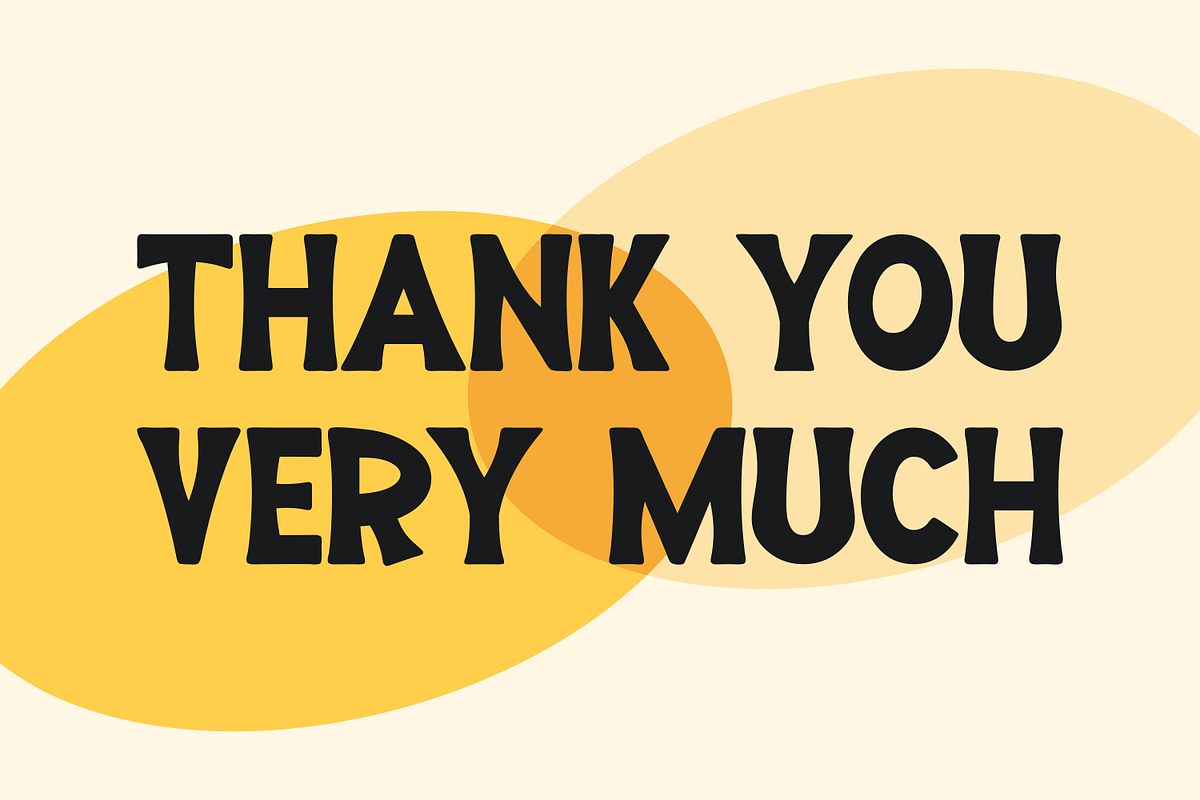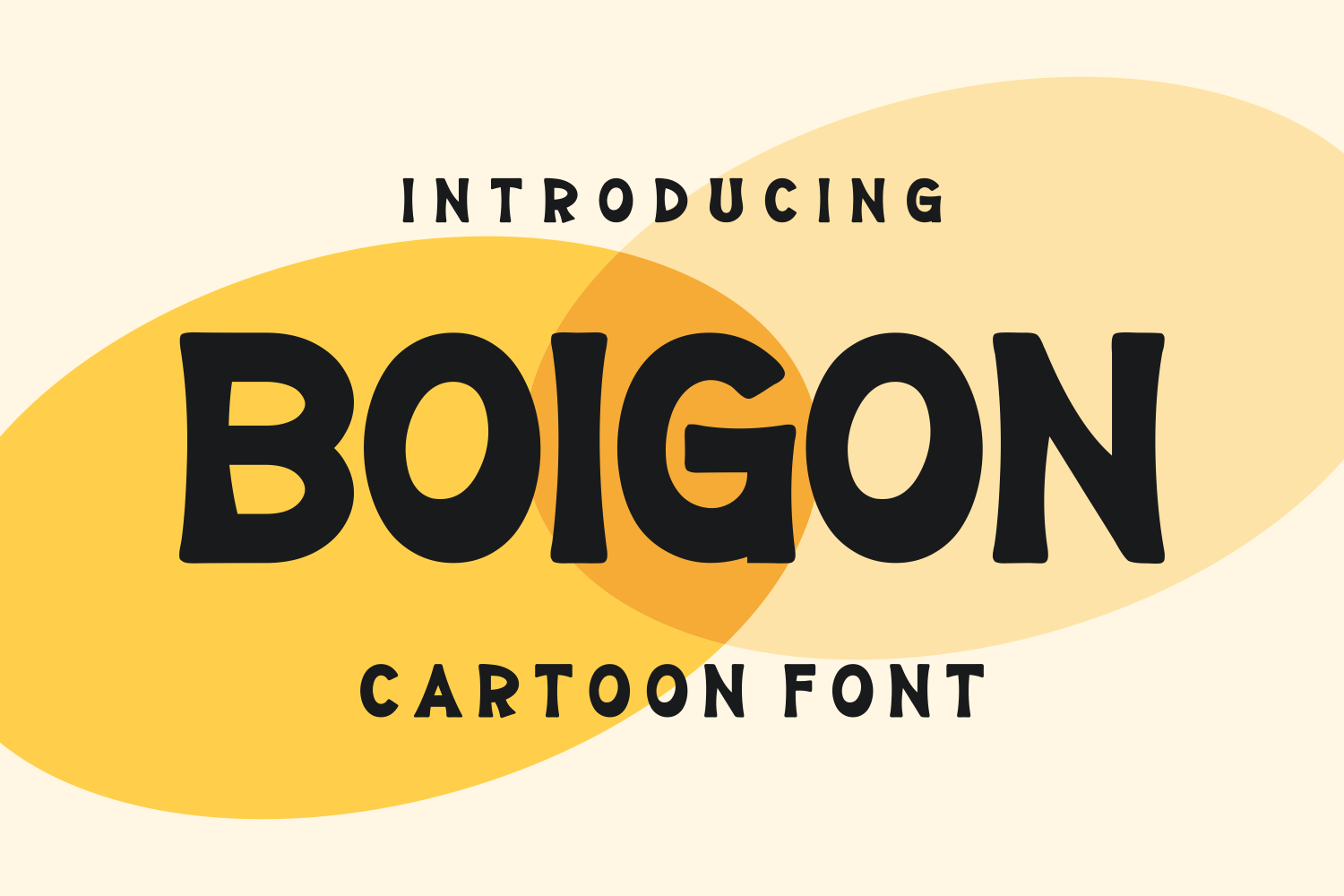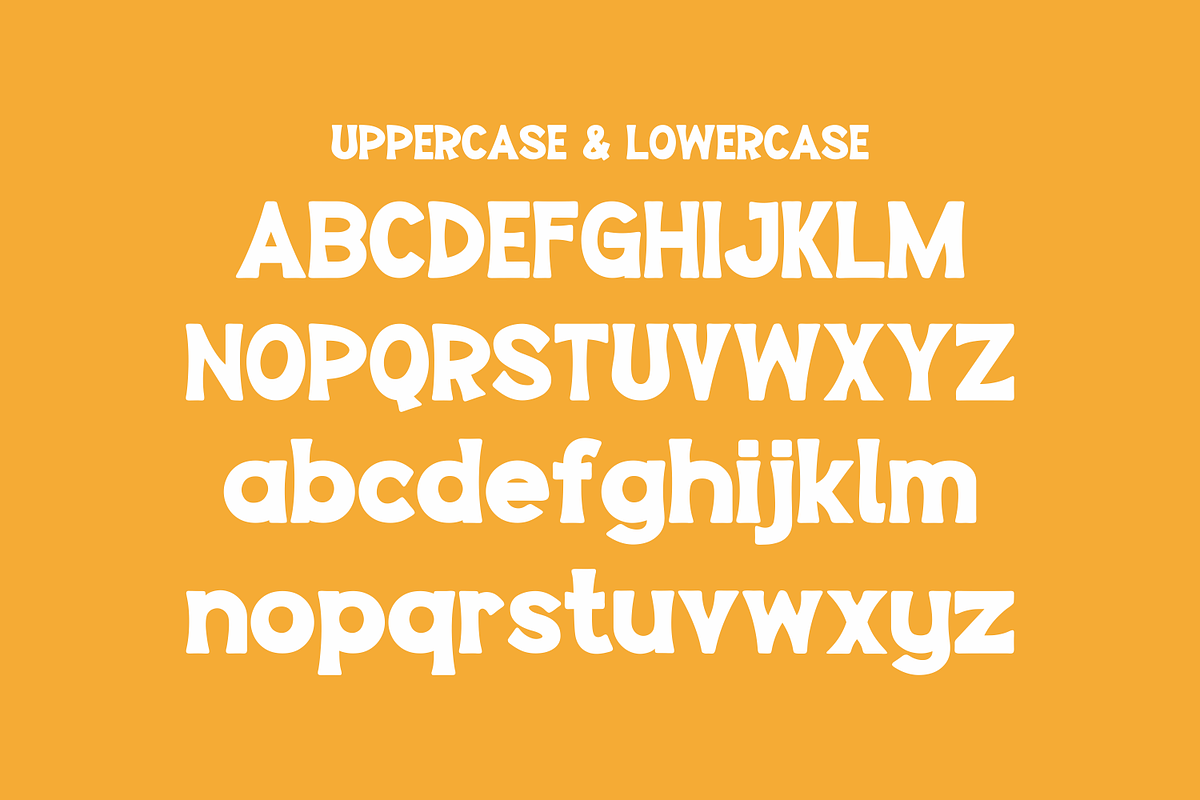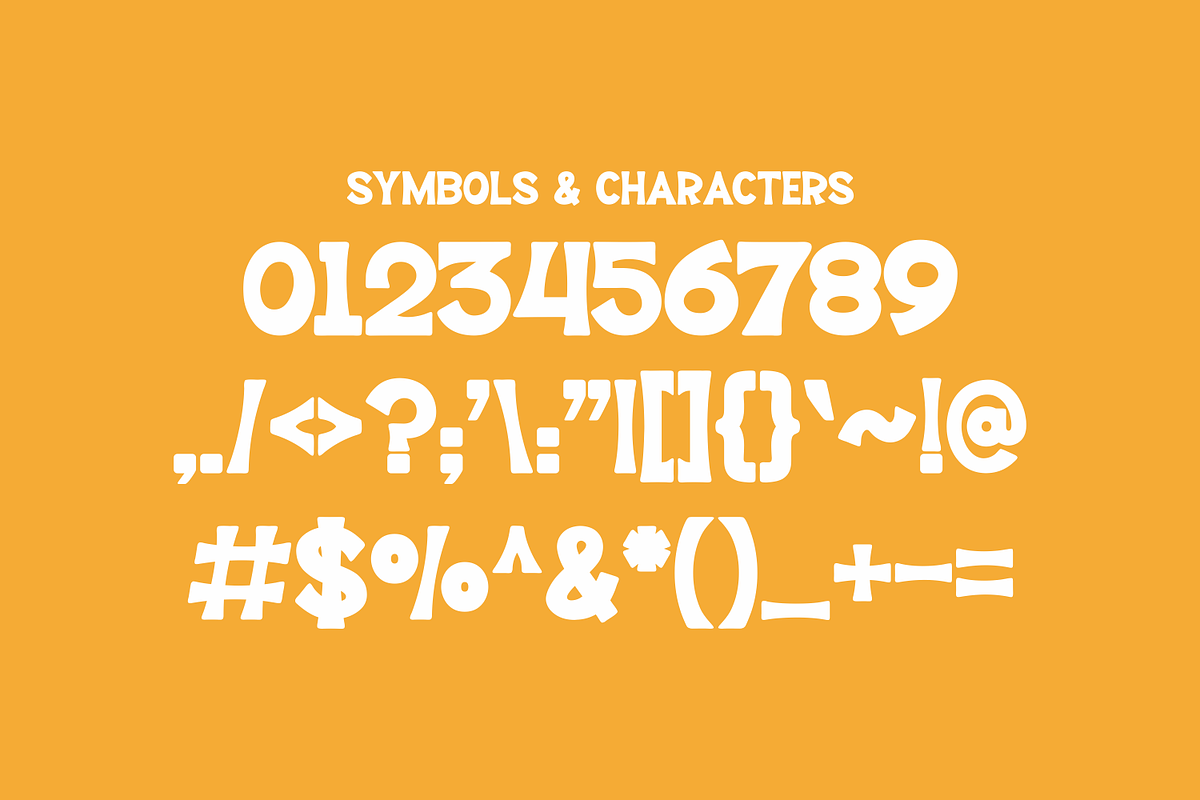
Boigon - Cartoon Font
Boigon - Cartoon Font Perfectly suited on print/screen. it’s perfect for Branding, name card, poster, logo, magazine, cover, banner, t-shirt and headers, or even large-scale artwork.